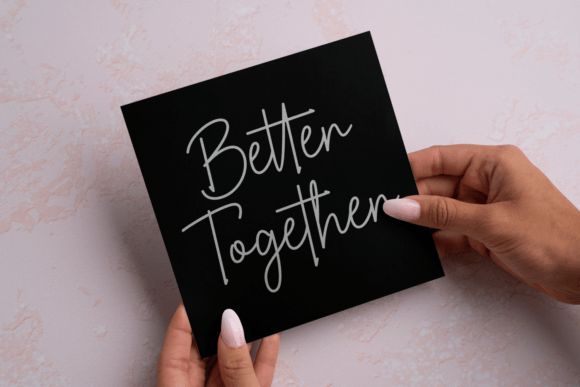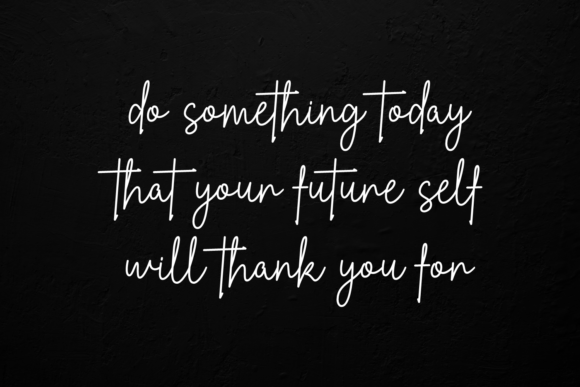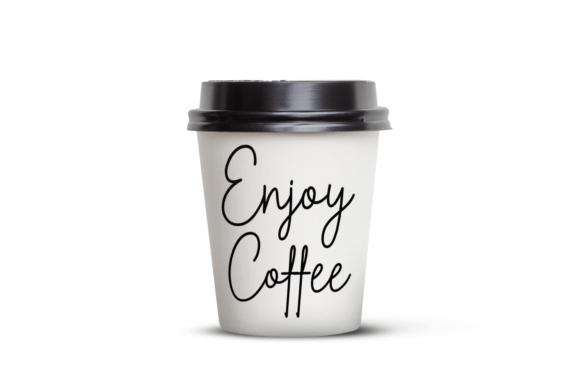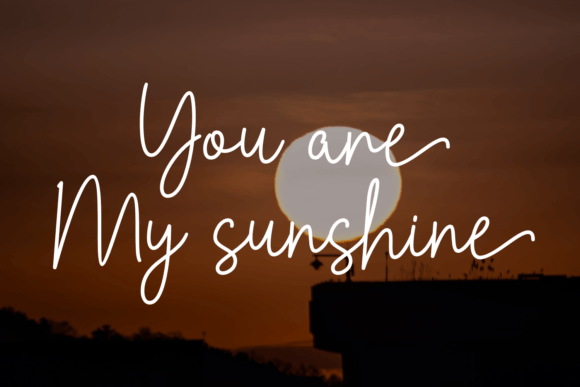
Introduction to Remitta Font
Have you ever been captivated by the elegant strokes of a handwritten signature? For designers, it’s not just about aesthetics, but also about capturing the essence of a personal touch. That’s where Remitta Font comes in – a beautiful signature script typeface that embodies the charm of a handwritten signature.
Whether you’re working on a branding project, creating invitations, or designing a creative project that requires a unique touch, Remitta Font is an invaluable resource. Its fluid strokes and distinctive character shapes make it perfect for adding a layer of authenticity to your designs. And the best part? You can easily download and use Remitta Font for free, complete with a transparent background, making it a high-quality addition to your design library.
Key Features of Remitta Font
- Designed with a clean and modern aesthetic, perfect for use in logos, branding, and digital designs.
Honest Review: Remitta Font
- ✨ High-quality typography with a modern twist, perfect for modern design projects.
- ✨ A wide range of styles and weights, making it suitable for various design applications.
- ✨ The font is fully editable, and you can customize it to fit your design needs.
Overall, the Remitta Font is a great addition to any design resource collection. Its high-quality typography, wide range of styles, and free download make it an excellent choice for personal and non-commercial projects. While it has its limitations, it’s still a valuable asset for designers looking to add some flair to their creative projects.
Remitta Font is perfect for a variety of projects, including business cards, brochures, and social media graphics. Its high-quality design and transparent background make it easy to use in creative projects.
To get the most out of Remitta Font, use it in conjunction with other design elements, such as images and graphics. Experiment with different font sizes, colors, and styles to create unique and eye-catching designs.